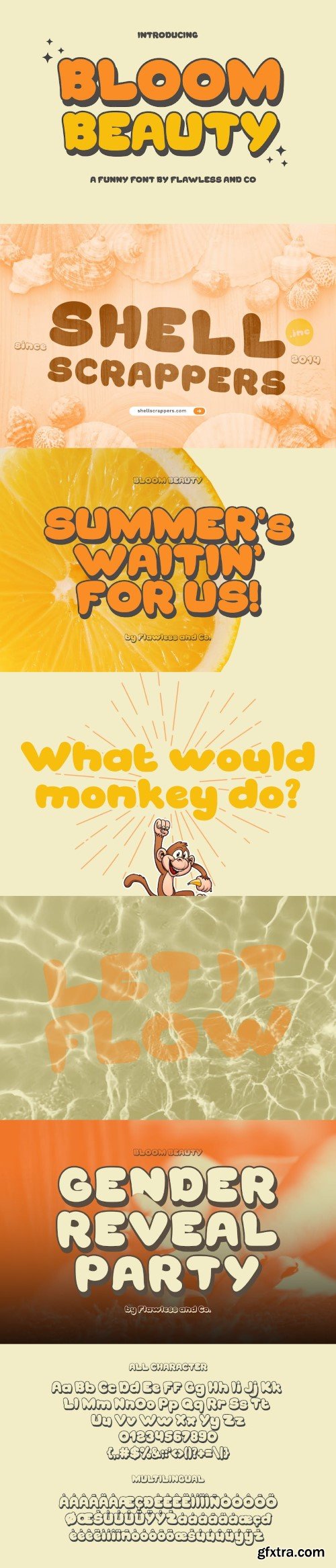
Bloom Beauty - 喜剧手写字体
Bloom Beauty - Funny Handwritten Font, Playful Handwritten Font, Cute Handwritten Font, Cricut Fonts, Procreate Fonts, Canva Font, Lovely Fonts, Handwritten Fonts, Fun Fonts, Branding Fonts, Logo Font, Bold Font
Introducing "Bloom Beauty" - a whimsical and bold handwritten font that adds a touch of humor and playfulness to your designs. With its lively and expressive letterforms, Bloom Beauty brings a sense of fun and joy to any project. This font is suitable for branding, business, logos, magazines, and others.